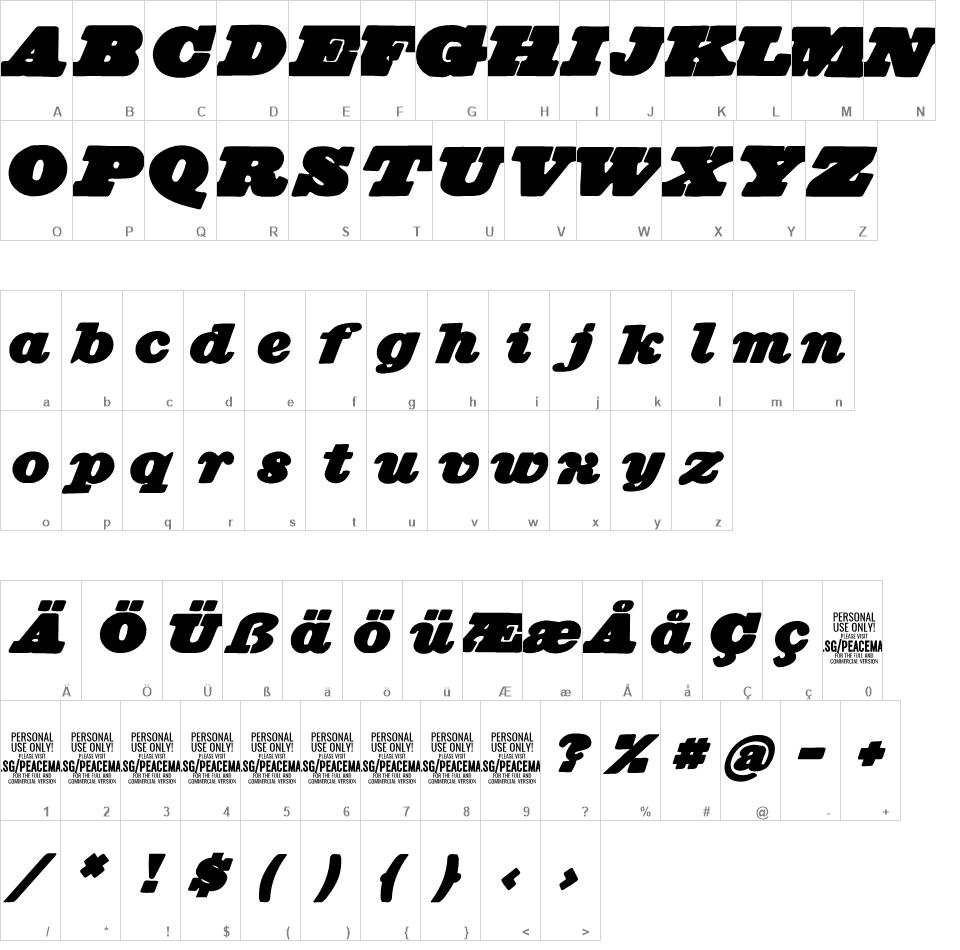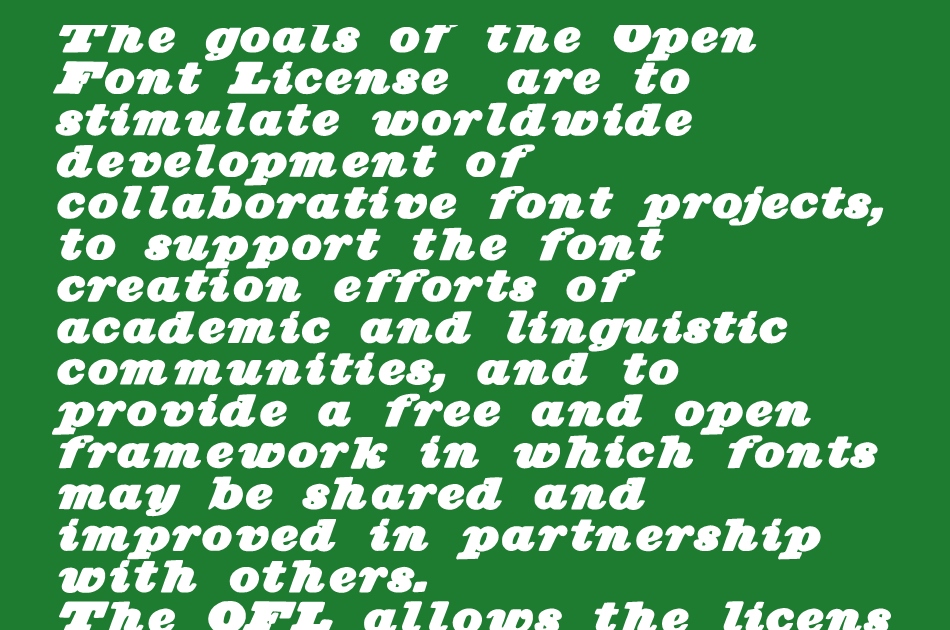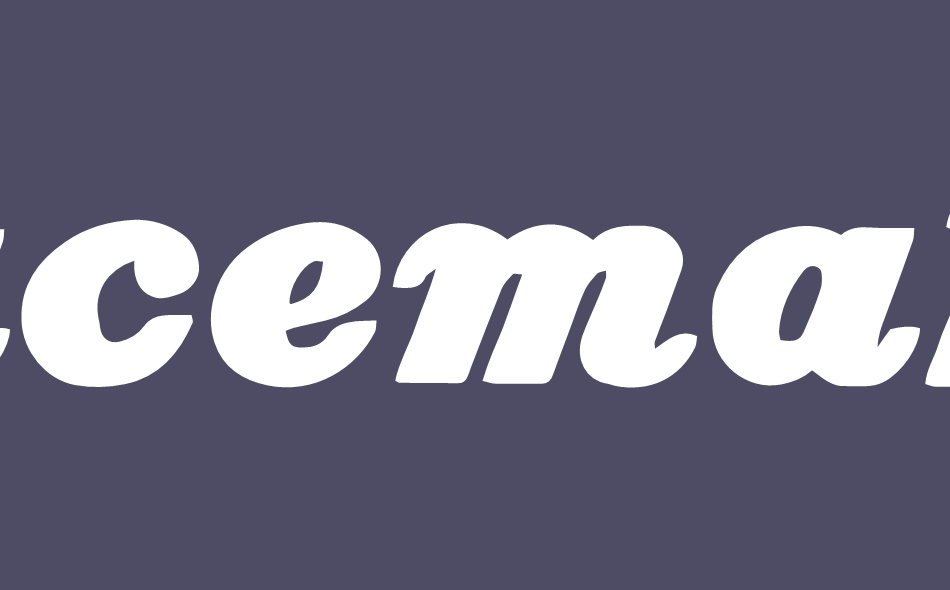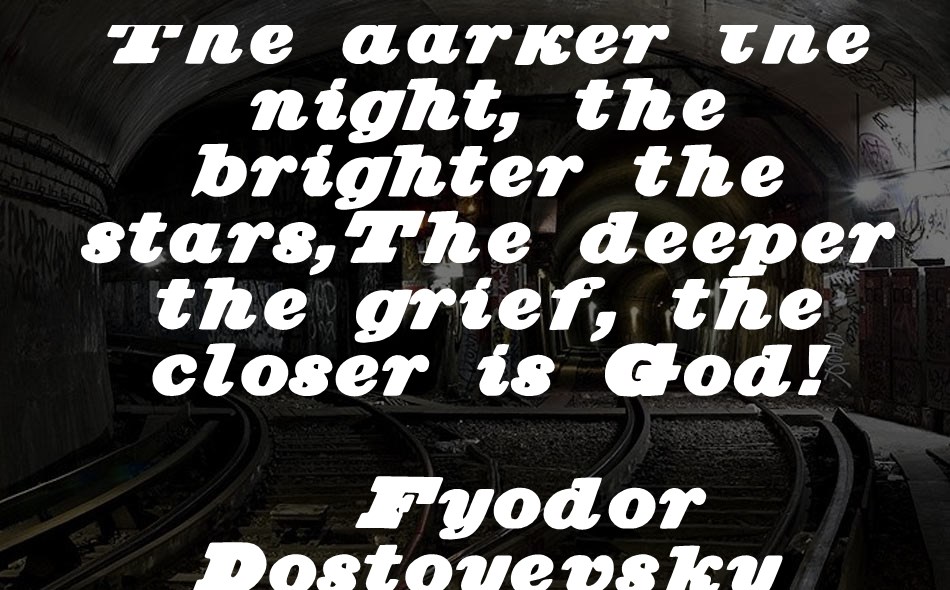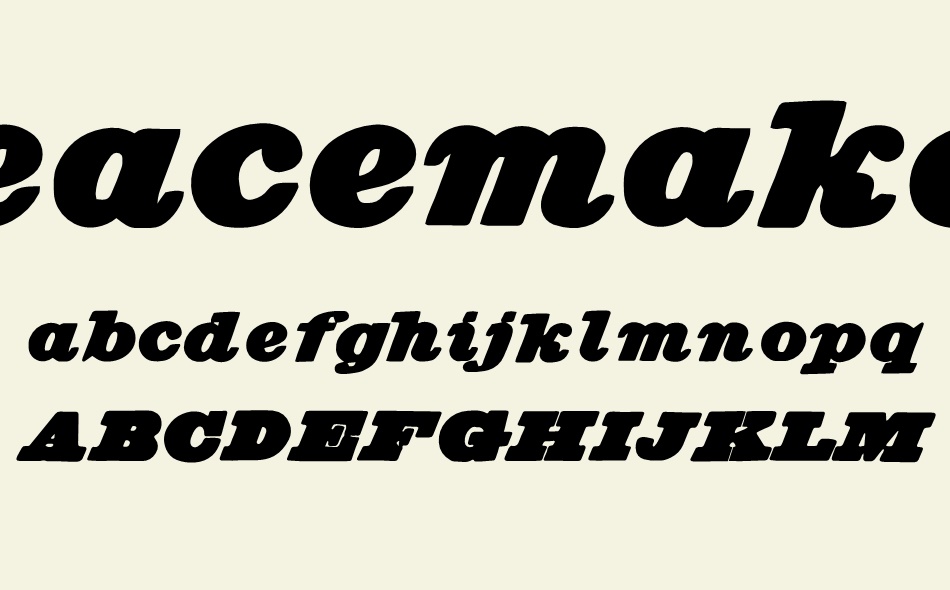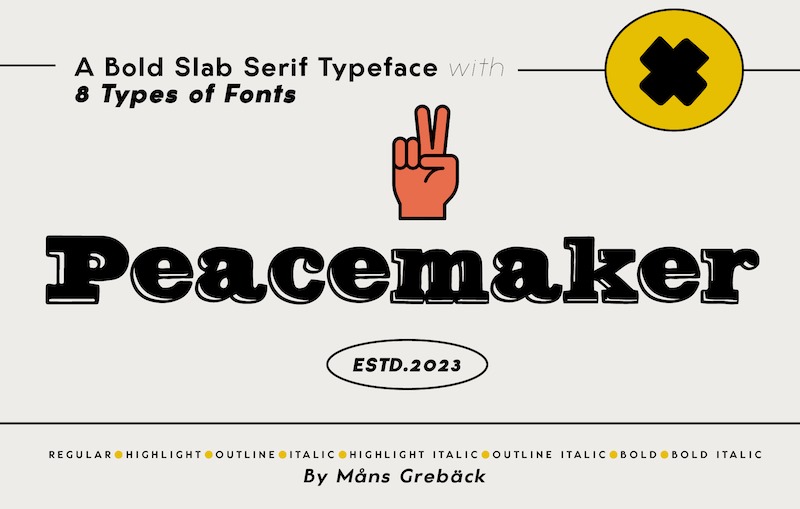
Peacemaker font
Peacemaker is a bold and rugged slab serif font that exudes the spirit of the American West. With a handprinted look that is reminiscent of old newspaper headlines from the 1890s, Peacemaker is perfect for creating a vintage feel in your designs. Its bold and confident appearance makes it ideal for attention-grabbing headlines and titles, while its versatile styles allow for a variety of creative possibilities. Whether you're designing a cowboy-themed poster or a rustic logotype, Peacemaker is sure to make a bold statement.
The Peacemaker family includes eight different styles: Bold, Bold Italic, Highlight, Highlight Italic, Outline, Outline Italic, and Regular. The Bold and Bold Italic styles are perfect for creating attention-grabbing headlines and titles, while the Highlight and Highlight Italic styles add a touch of vintage flair to your designs. The Italic and Outline styles are great for adding emphasis and creating contrast within your text, and the Regular style provides a solid base for your typography.
The font is built with advanced OpenType functionality and has a guaranteed top-notch quality, containing stylistic and contextual alternates, ligatures and more features; all to give you full control and customizability. It has extensive lingual support, covering all Latin-based languages, from Northern Europe to South Africa, from America to South-East Asia. It contains all characters and symbols you'll ever need, including all punctuation and numbers.